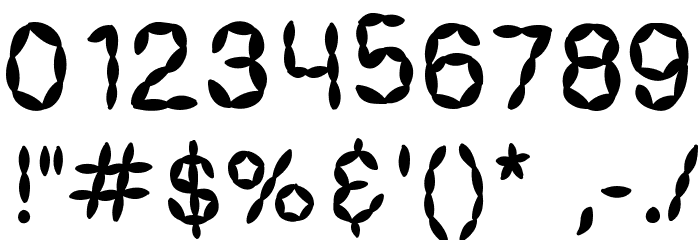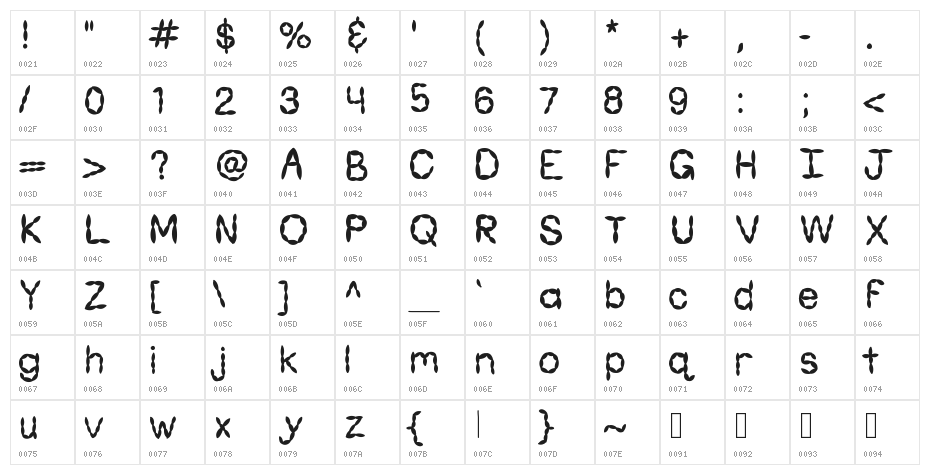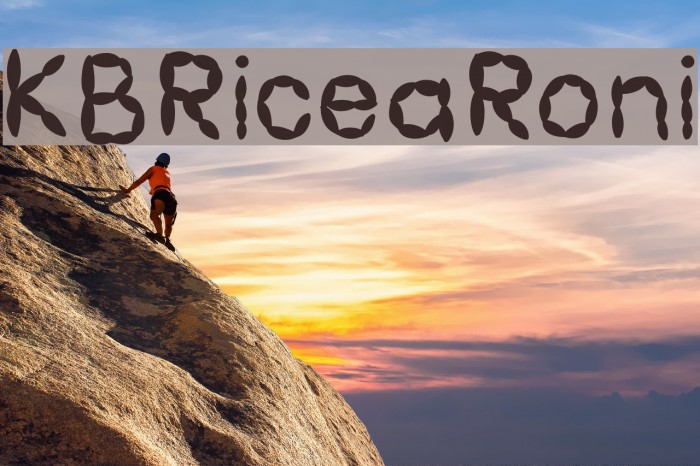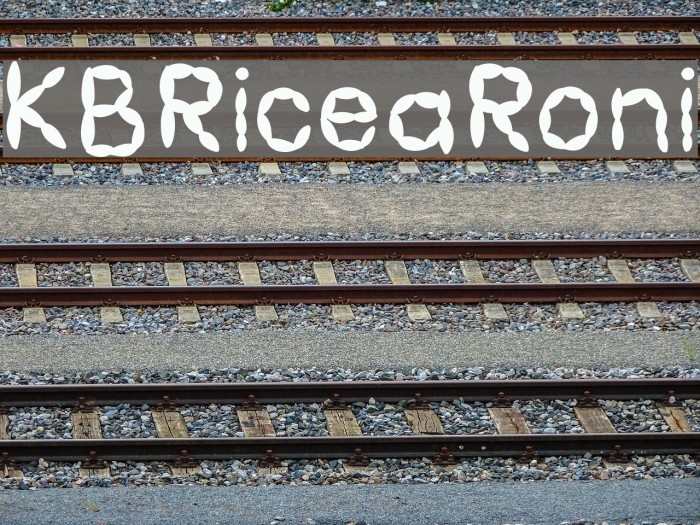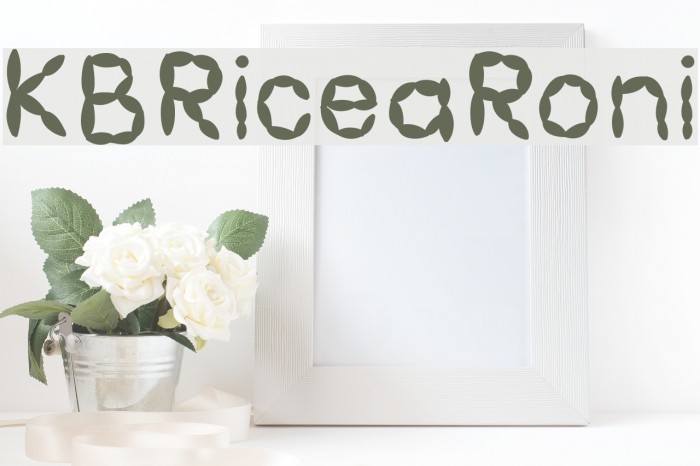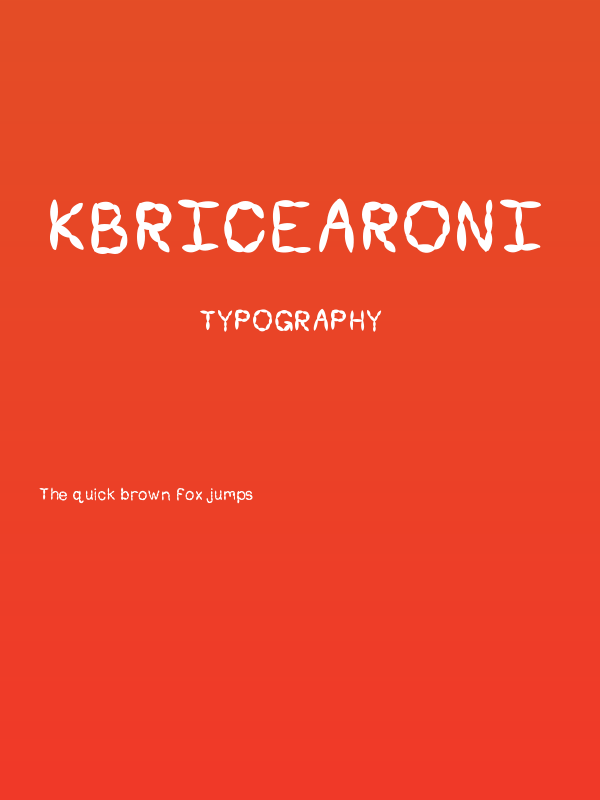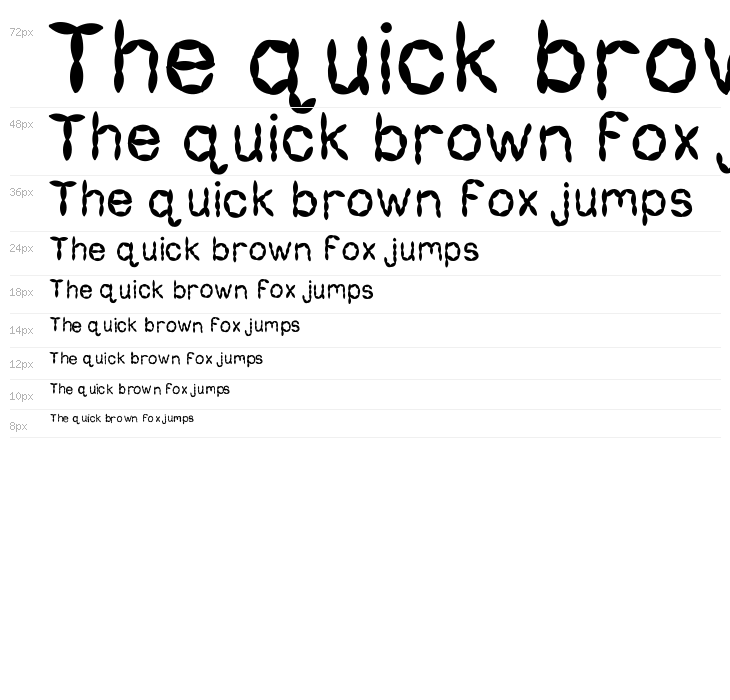
KBRiceaRoni Font
KBRiceaRoni Description
This font features a unique, organic design with characters that appear to be crafted from twisted, vine-like forms. Each letter and number is composed of thick, rounded strokes that give the font a playful and artistic appearance. The irregular shapes and varying stroke widths contribute to its distinctive, hand-drawn style. The font maintains legibility while offering a creative and whimsical aesthetic, making it suitable for projects that require a touch of nature-inspired artistry.
| Proposed Projects | Ideal for eco-friendly branding, children's book covers, artistic posters, and creative event invitations. |